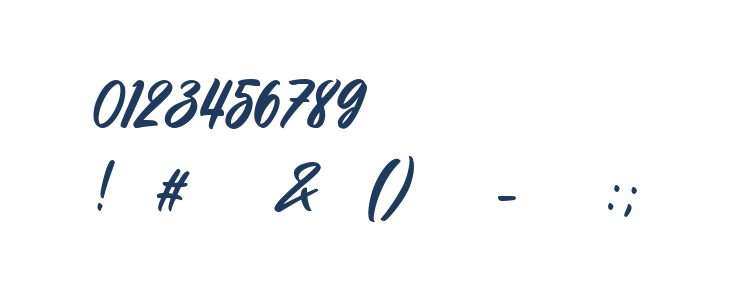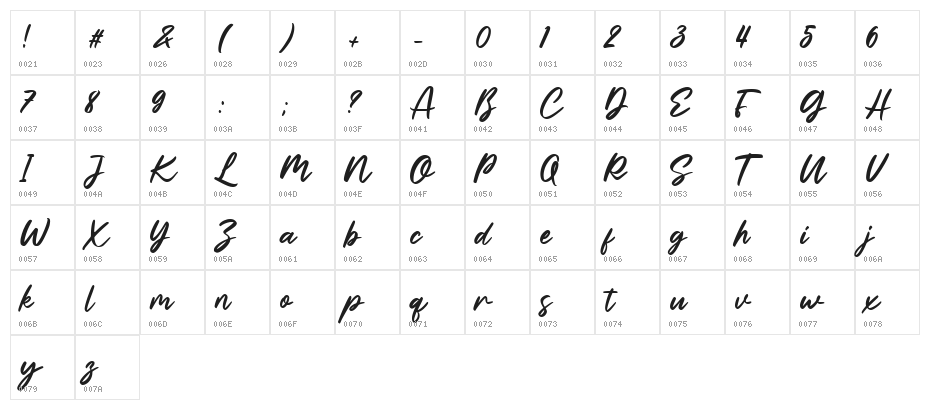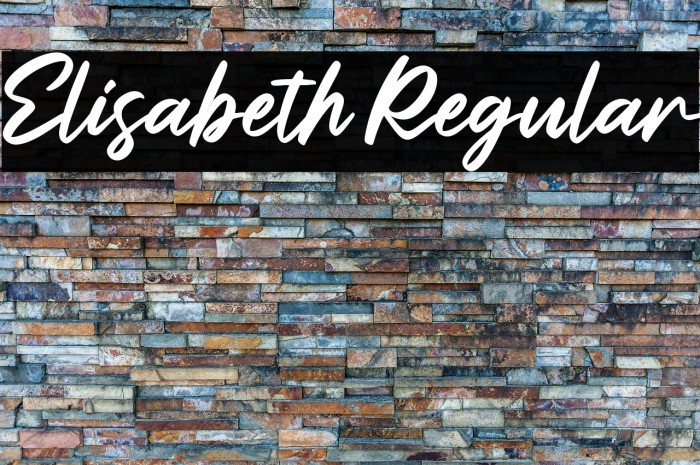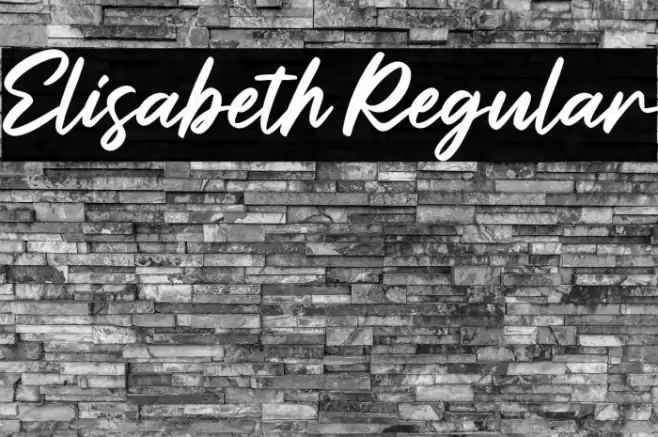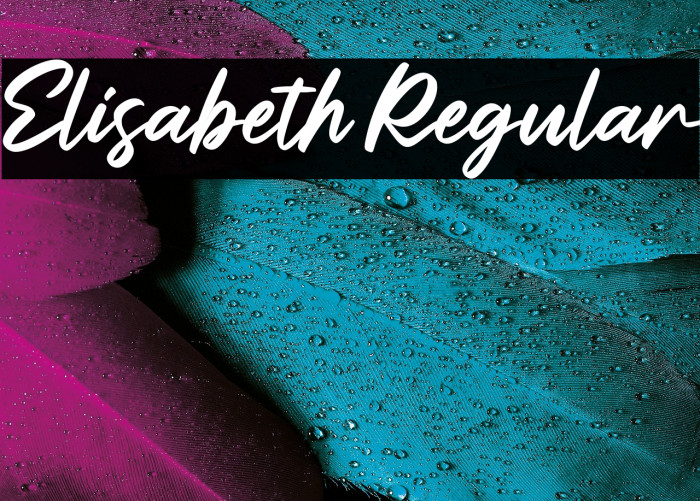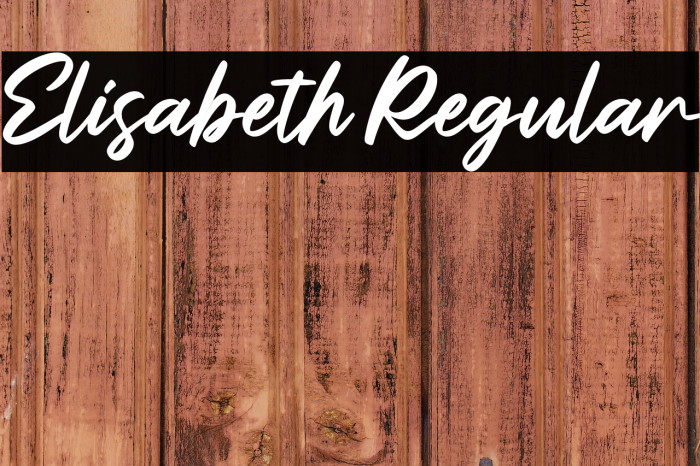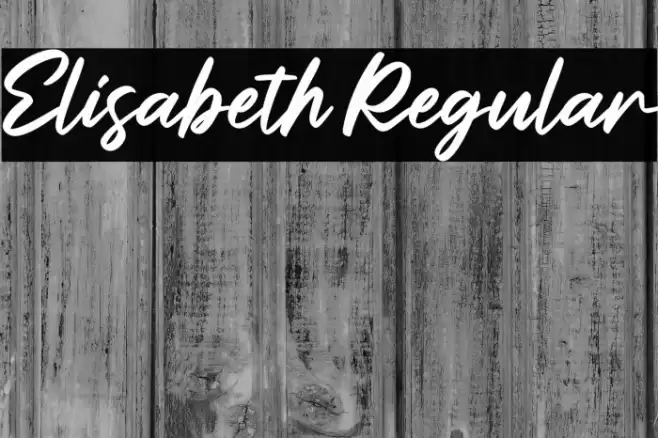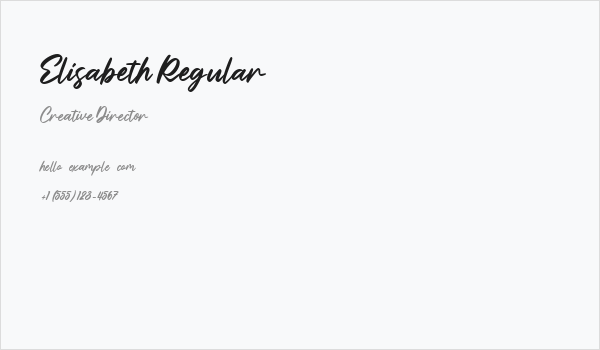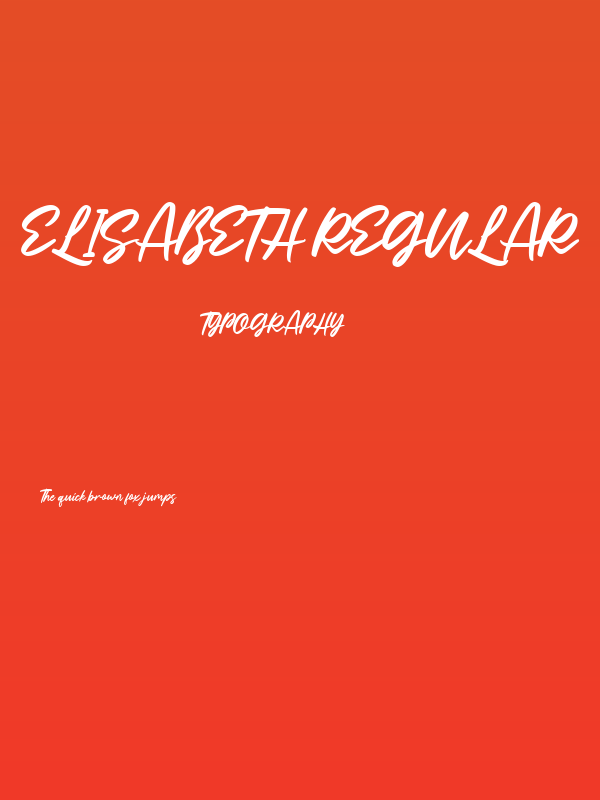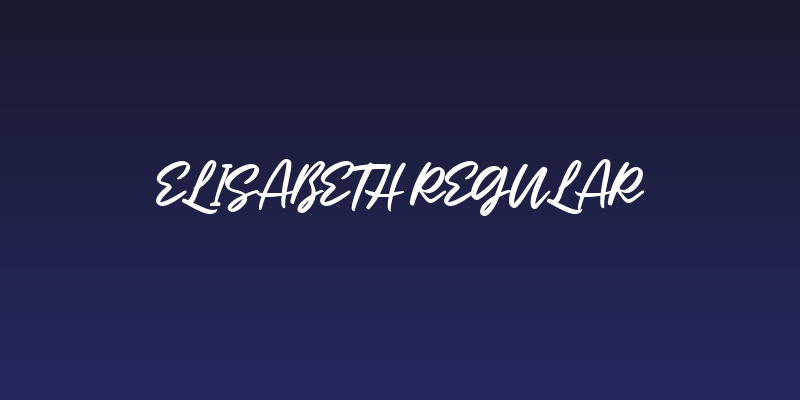
Elisabeth Regular Font
Elisabeth Regular Description
This font exudes a lively and dynamic character with its fluid, cursive style. The letters are interconnected, creating a seamless flow that mimics natural handwriting. The strokes are bold and confident, with a slight slant that adds to its energetic appearance. The uppercase letters maintain a consistent height, while the lowercase letters vary slightly, adding to the handwritten feel. Numbers and special characters are crafted with the same attention to detail, ensuring uniformity across all glyphs. This font is perfect for projects that require a personal touch, such as invitations, greeting cards, or branding materials.
| Proposed Projects | Ideal for invitations, greeting cards, branding, and personal projects. |